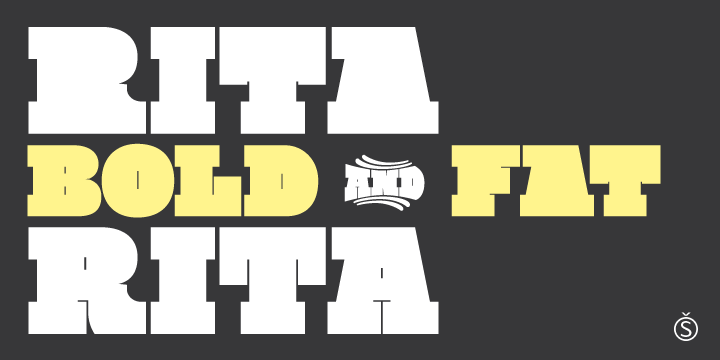
Thick and rough, with subtle curves. Rita it’s Daniel Hernandez font, inspired by woodtypes.
It has two variants: Regular and fat, which allow the user to compose text in the most dynamic way with better use alternatives. It has a variety of ornaments and symbols that allow to enrich a composition at the time of use.